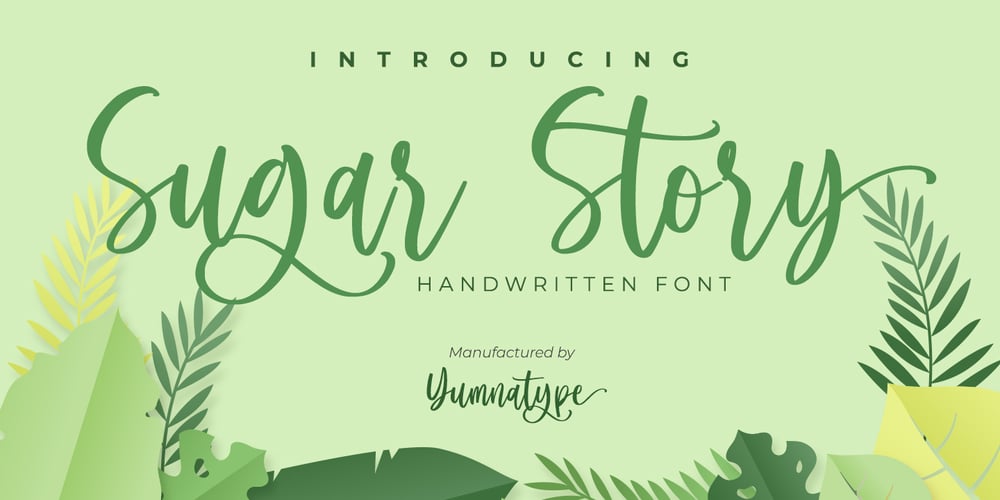
Sugar Story Font Family was designed by Donis Miftahudin and published by Yumna Type. Sugar Story contains 1 styles and family package options. Sugar Story is a sweet handwritten font with a natural and unique design will make your project more beautiful. The font is suitable for your branding project, printing, logos dan wedding.Included:Sugar Story (OTF)Features: Beautiful Ligatures Alternates Multilingual Support PUA encoded Numeral and Punctuation by Yumnatype